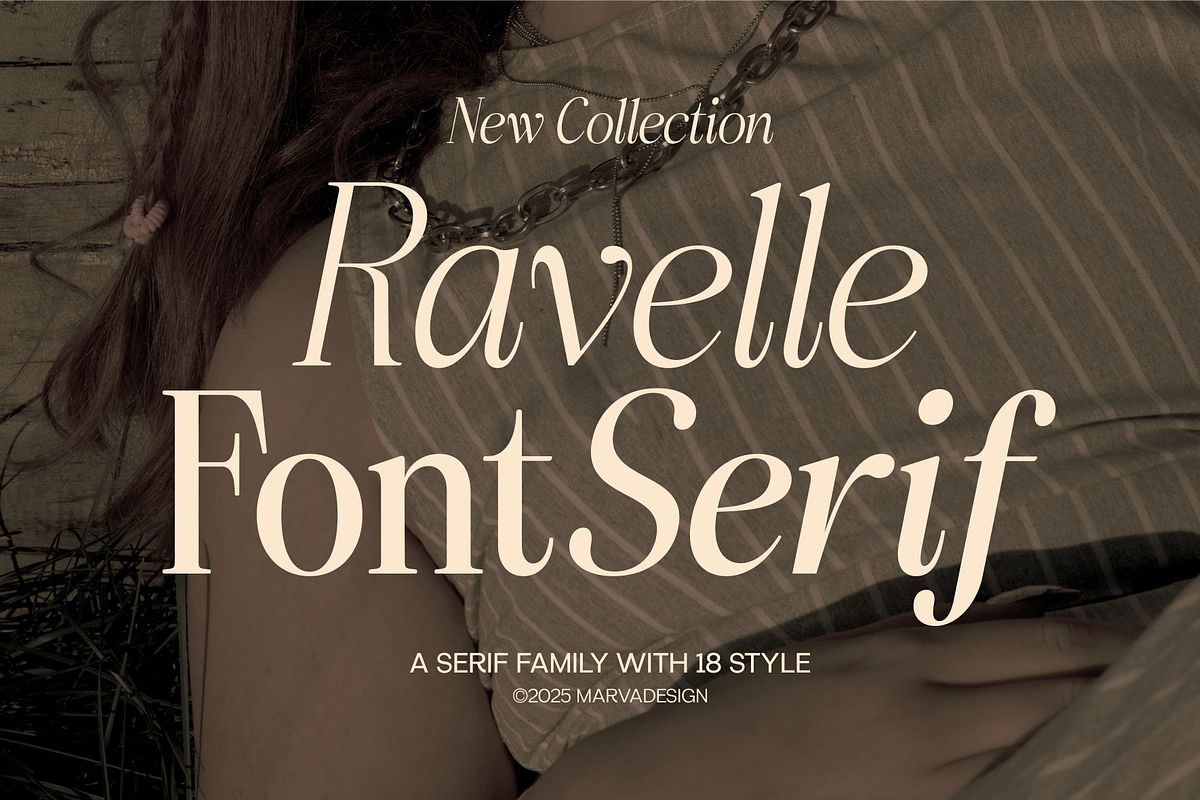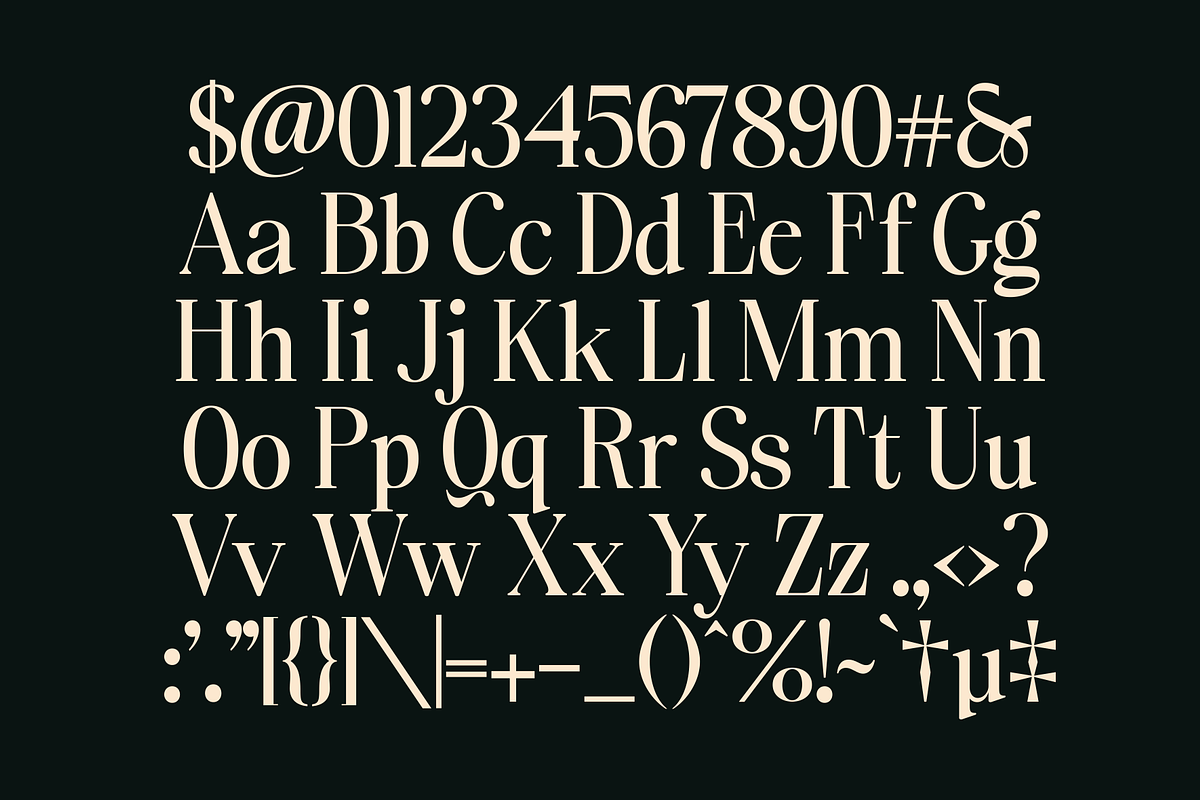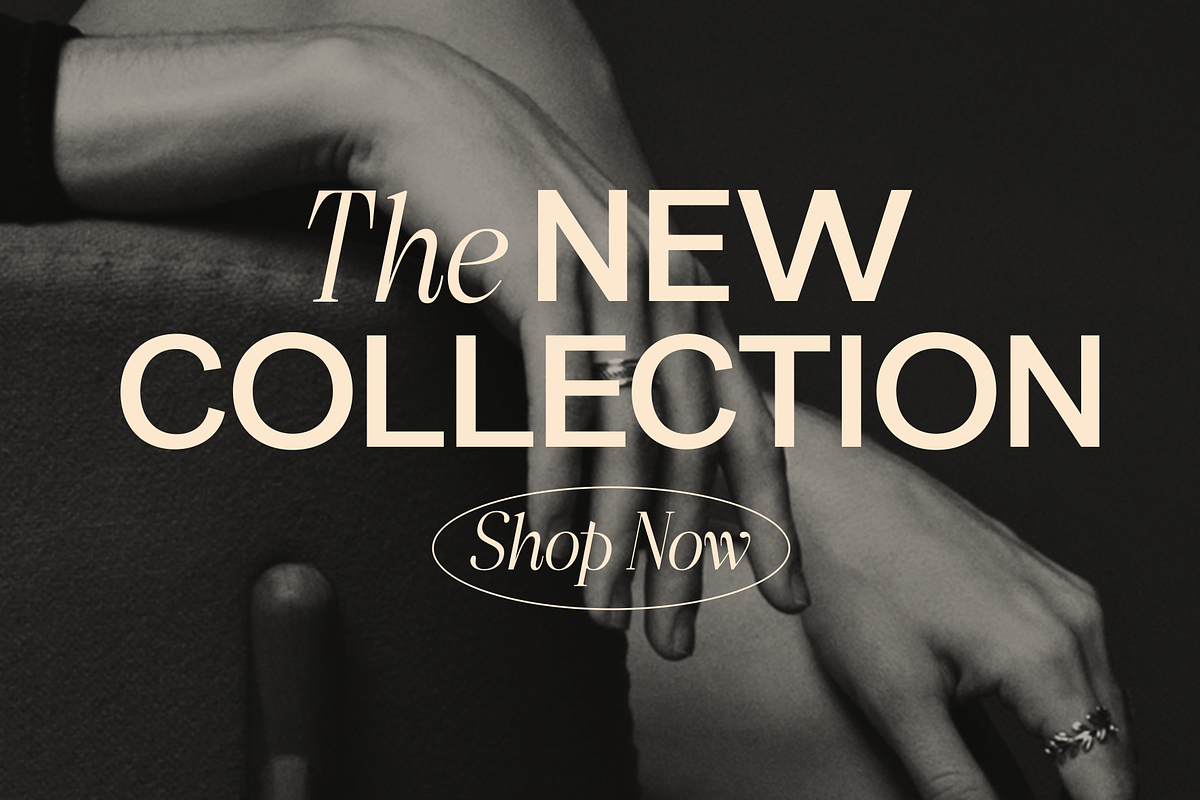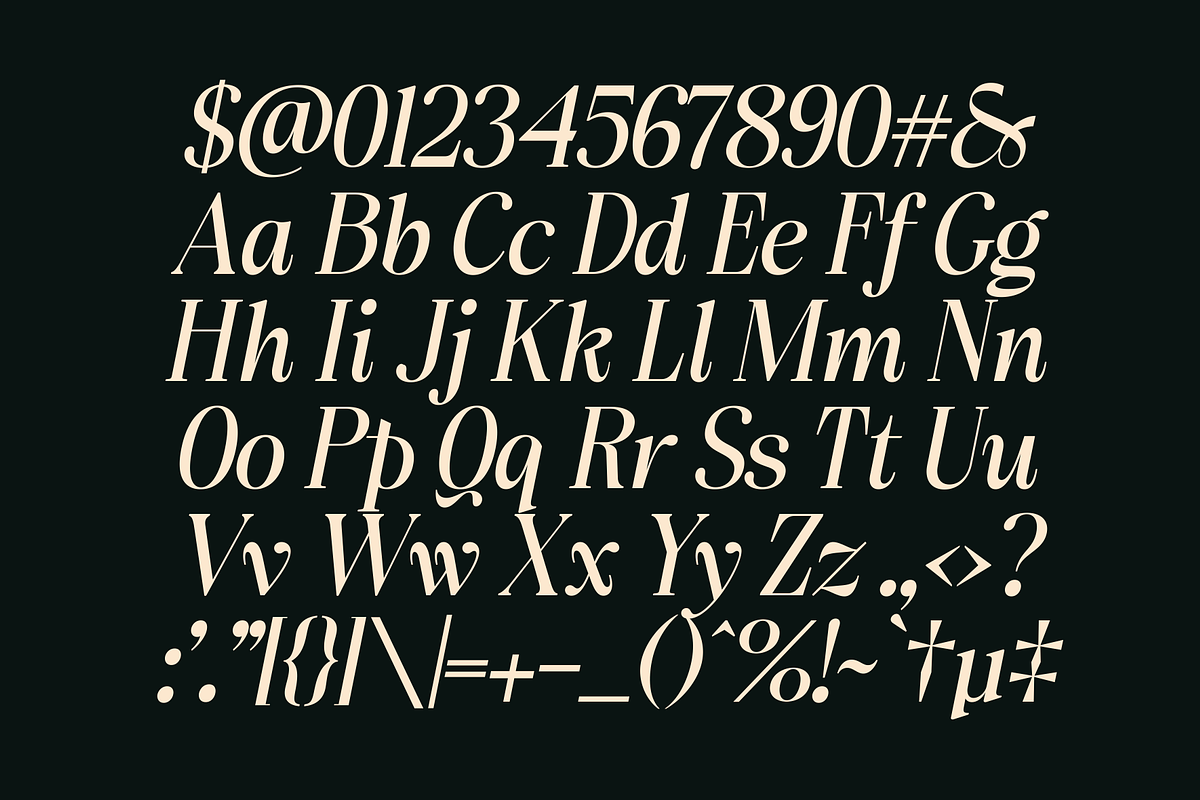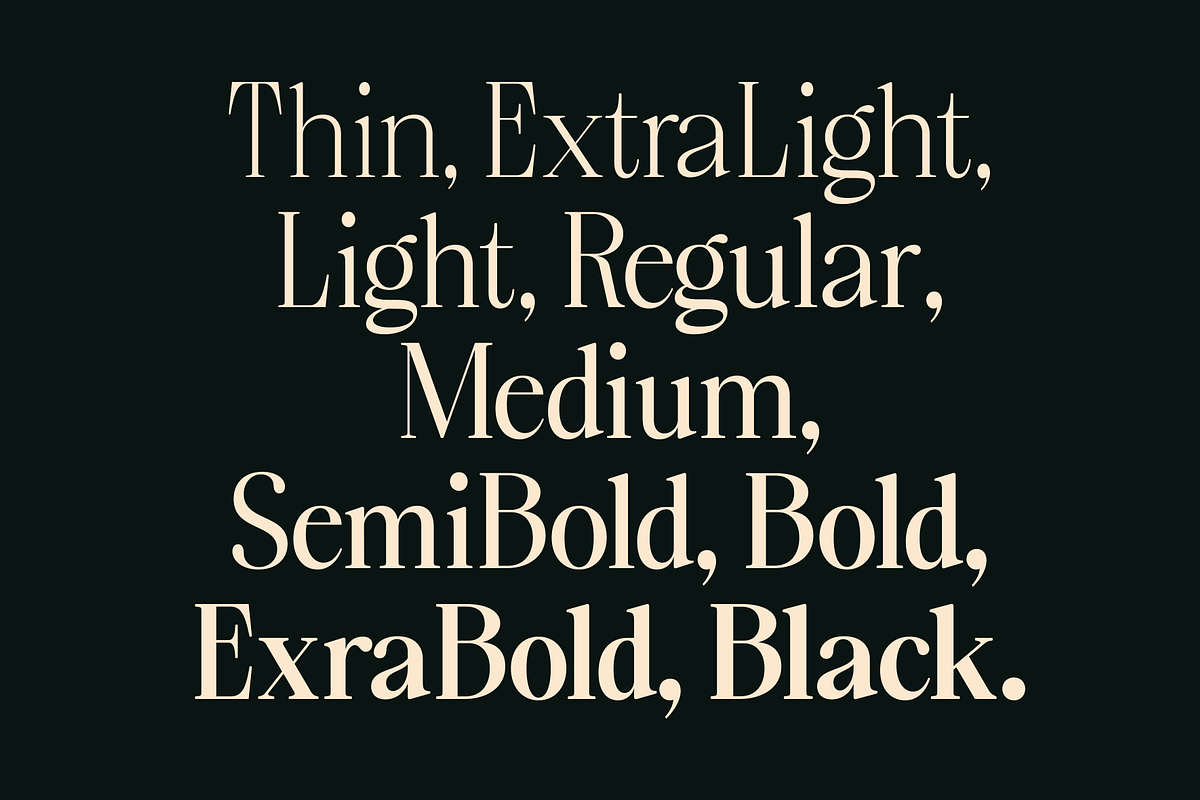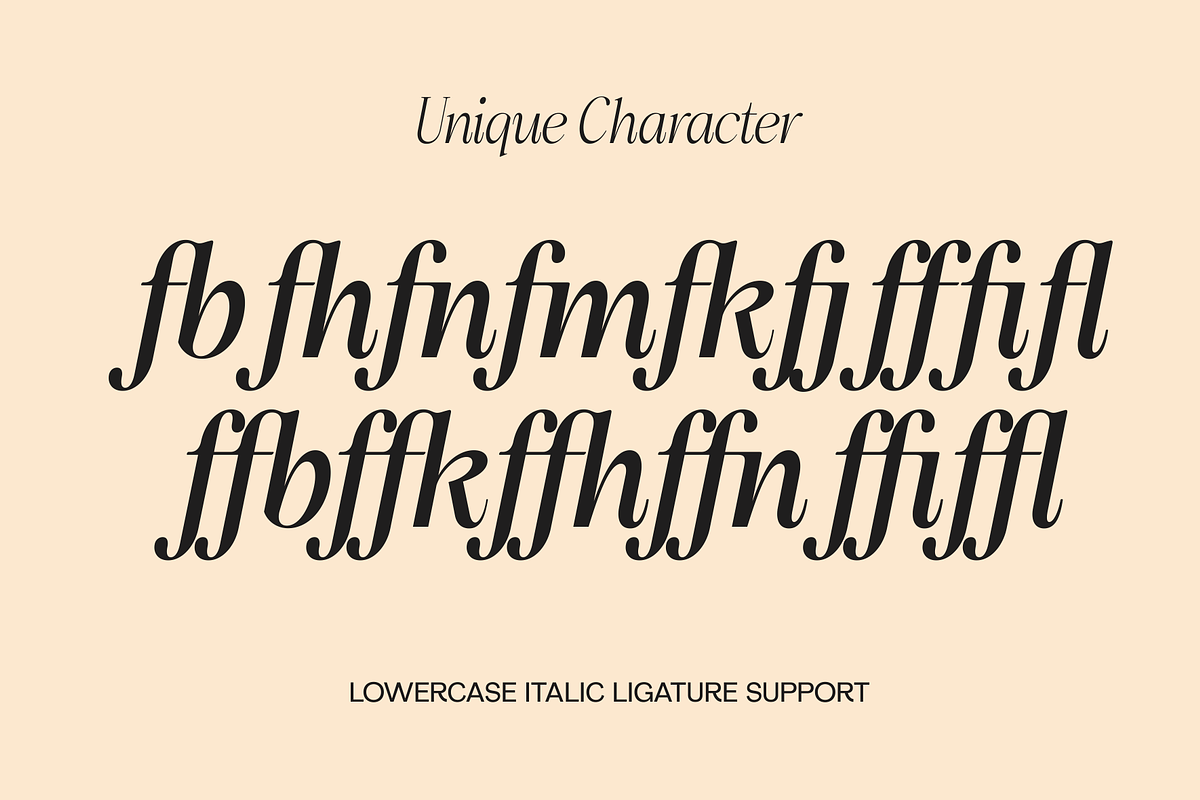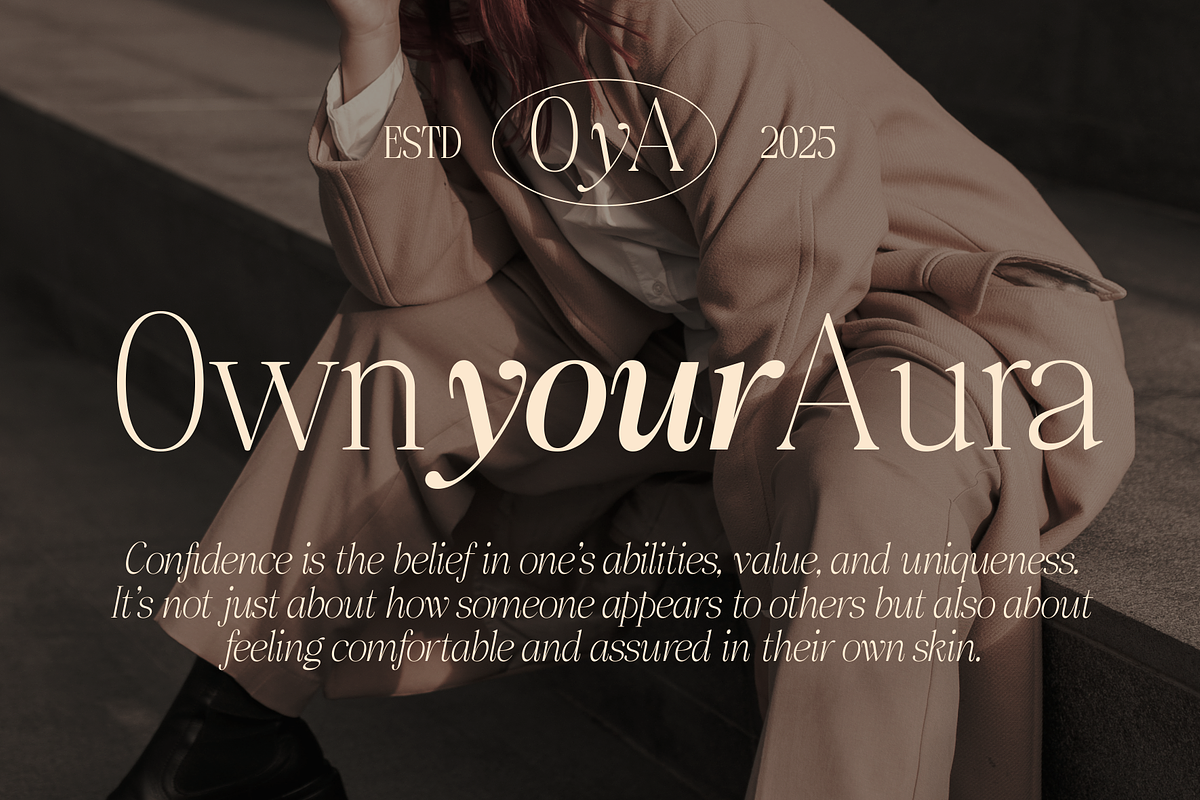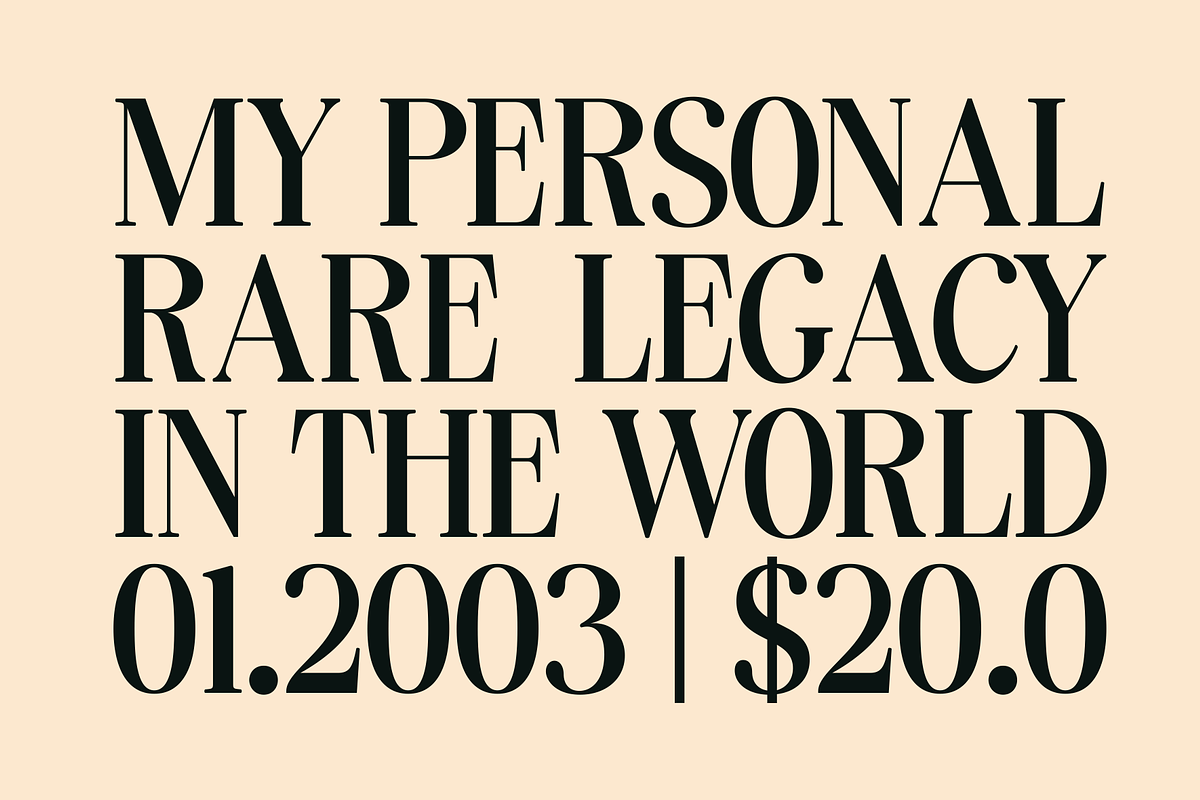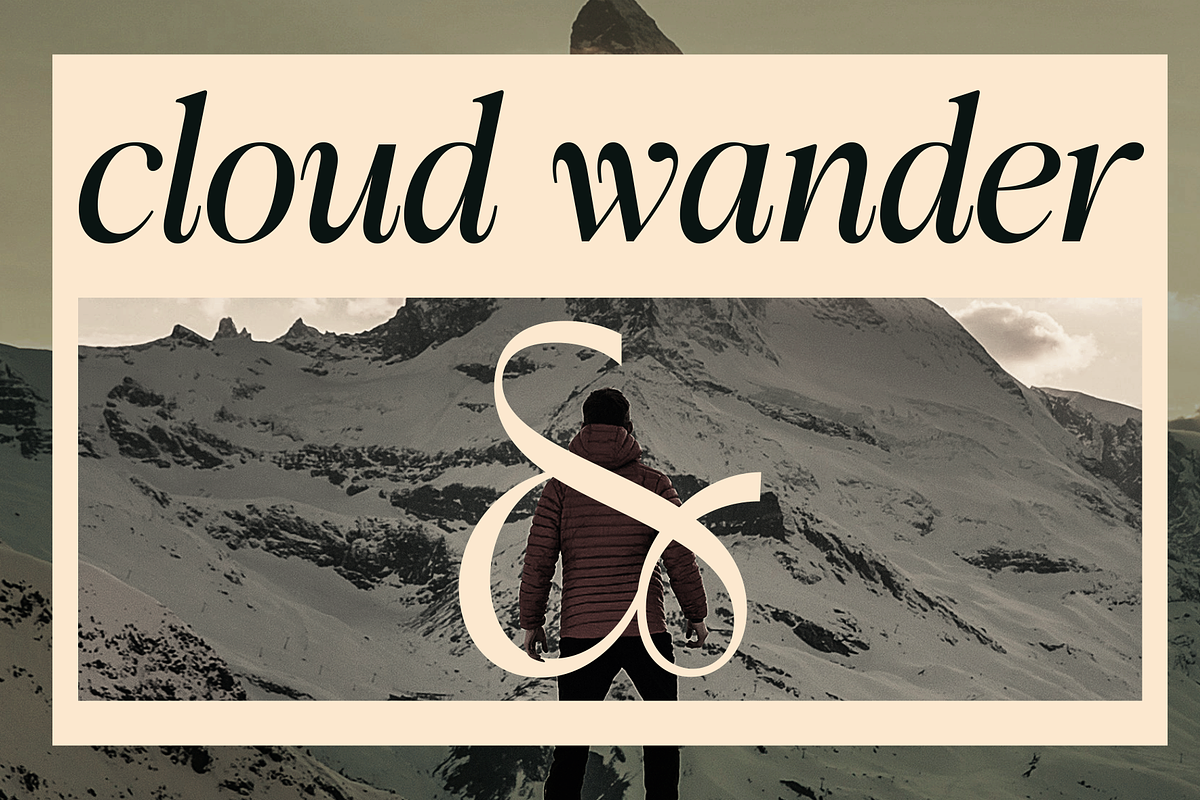
Ravelle - Family Serif Font
Introducing New Family Serif Font Ravelle Font Serif is an elegant and sophisticated serif typeface that combines classic design with modern aesthetics. It features a graceful balance of thick and thin strokes, delivering a refined and timeless appearance. This font family includes a variety of weights ranging from Thin to Black, offering versatility for diverse design applications.
Characterized by subtle curves and sharp serifs, Ravelle exudes a sense of luxury and professionalism. Its high contrast and delicate details make it suitable for editorial designs, branding, invitations, and other premium projects. The font's stylish and expressive nature enhances readability while maintaining a distinctive visual appeal.
With 18 different styles, Ravelle provides flexibility in creating unique typographic compositions, making it an ideal choice for designers seeking both elegance and functionality.
The styles include
- Thin
- Thin Italic
- ExtraLight
- ExtraLight Italic
- Light
- Light Italic
- Regular Italic
- Medium
- Medium Italic
- SemiBold
- SemiBold Italic
- Bold
- Bold Italic
- Extra Bold
- Extra Bold Italic
- Black
- Black Italic